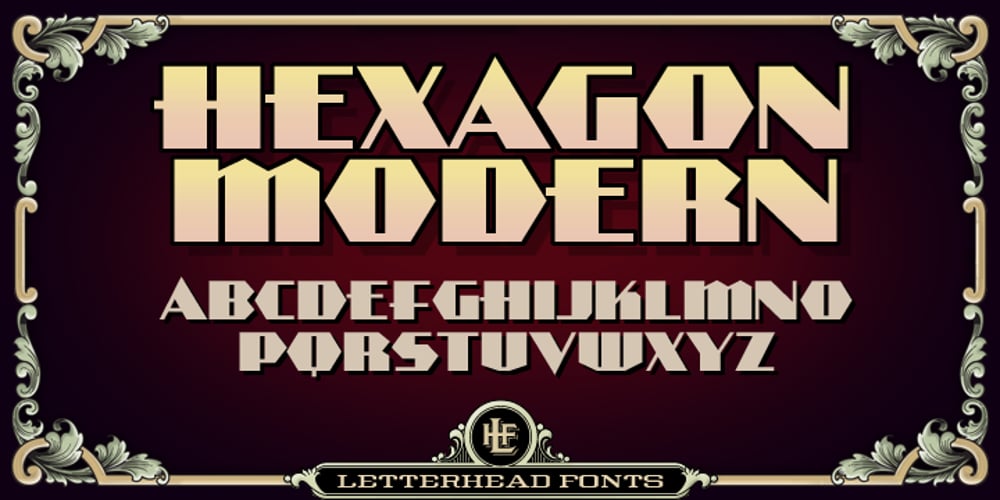
LHF Hexagon Modern Font Family was designed by Corey Lewis and published by Letterhead Fonts. LHF Hexagon Modern contains 3 styles and family package options. Art Deco style inspired by signpainter Alf R. Becker. Includes lowercase letters in 3 styles: Regular, Shadow & Outline. Alternate characters also included for each font.